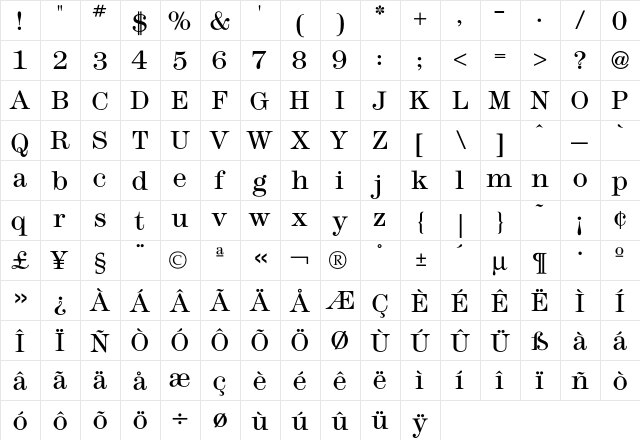
Modern Light
Design Context for Modern Typeface
Modern offers clean, dependable letterforms without strong stylistic allegiance, making it a practical choice for designers who need flexibility. Its slender proportions lend an understated elegance to any composition.
Pro Tip: Use Modern in both headline and body roles to test its range before committing to a single application.